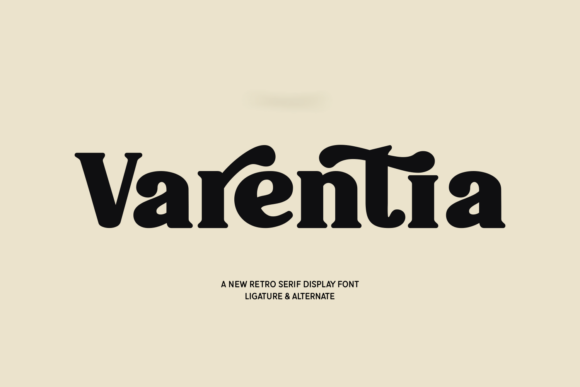
Introducing Varentia Font: A Bold Retro Serif Display Font
Are you looking for a font that can add a touch of nostalgia and playfulness to your design project? Look no further than Varentia Font, a bold retro serif display font that brings playful curves and dramatic ligatures to the forefront. With its vintage-inspired flair and eye-catching alternates, Varentia is the perfect choice for designers who want to add character and charisma to their work.
What is Varentia Font?
Varentia Font is a bold retro serif display font that is designed to make a statement. Its unique blend of vintage-inspired flair and modern sensibilities makes it perfect for a wide range of design projects, from logos and packaging to album covers and standout headlines. With its playful curves and dramatic ligatures, Varentia adds a touch of whimsy and personality to any design.
Key Features of Varentia Font
- Bold and eye-catching: Varentia Font is a bold and eye-catching font that is designed to grab attention.
- Retro serif design: With its retro serif design, Varentia Font has a unique and nostalgic feel that is perfect for designers who want to add a touch of vintage charm to their work.
- Playful curves: Varentia Font features playful curves that add a touch of whimsy and personality to any design.
- Dramatic ligatures: The font also features dramatic ligatures that add an extra layer of interest and sophistication to any design.
- Vintage-inspired flair: With its vintage-inspired flair, Varentia Font is perfect for designers who want to add a touch of nostalgia to their work.
- Eye-catching alternates: The font also features eye-catching alternates that allow designers to add extra personality and character to their work.
Uses for Varentia Font
Varentia Font is a versatile font that can be used for a wide range of design projects, including:
- Logos: Varentia Font is perfect for logos that need to make a bold statement.
- Packaging: The font is also great for packaging design, adding a touch of personality and whimsy to any product.
- Album covers: Varentia Font is a great choice for album covers, adding a touch of nostalgia and vintage charm to any music release.
- Standout headlines: The font is also perfect for standout headlines, adding a touch of drama and sophistication to any design.
Why Choose Varentia Font?
There are many reasons why designers might choose Varentia Font for their next project. Here are just a few:
- Unique and eye-catching: Varentia Font is a unique and eye-catching font that is sure to grab attention.
- Vintage-inspired flair: The font’s vintage-inspired flair adds a touch of nostalgia and charm to any design.
- Playful curves: Varentia Font’s playful curves add a touch of whimsy and personality to any design.
- Dramatic ligatures: The font’s dramatic ligatures add an extra layer of interest and sophistication to any design.
Tips for Using Varentia Font
Here are a few tips for using Varentia Font in your next design project:
- Use it boldly: Varentia Font is a bold font, so don’t be afraid to use it boldly and make a statement.
- Experiment with alternates: The font’s eye-catching alternates allow for a lot of creativity and experimentation.
- Pair it with other fonts: Varentia Font pairs well with a variety of other fonts, so don’t be afraid to experiment with different combinations.
- Use it sparingly: Because Varentia Font is so bold and eye-catching, it’s best to use it sparingly and only where it will have the most impact.
Varentia Font is a bold retro serif display font that brings playful curves and dramatic ligatures to the forefront. With its vintage-inspired flair and eye-catching alternates, Varentia adds character and charisma to any project. Perfect for logos, packaging, album covers, or standout headlines, this font blends nostalgic charm with modern sensibilities for truly unforgettable typography. Whether you’re a seasoned designer or just starting out, Varentia Font is a great choice for any design project.
- What is Varentia Font? Varentia Font is a bold retro serif display font that brings playful curves and dramatic ligatures to the forefront.
- What is Varentia Font used for? Varentia Font can be used for a wide range of design projects, including logos, packaging, album covers, and standout headlines.